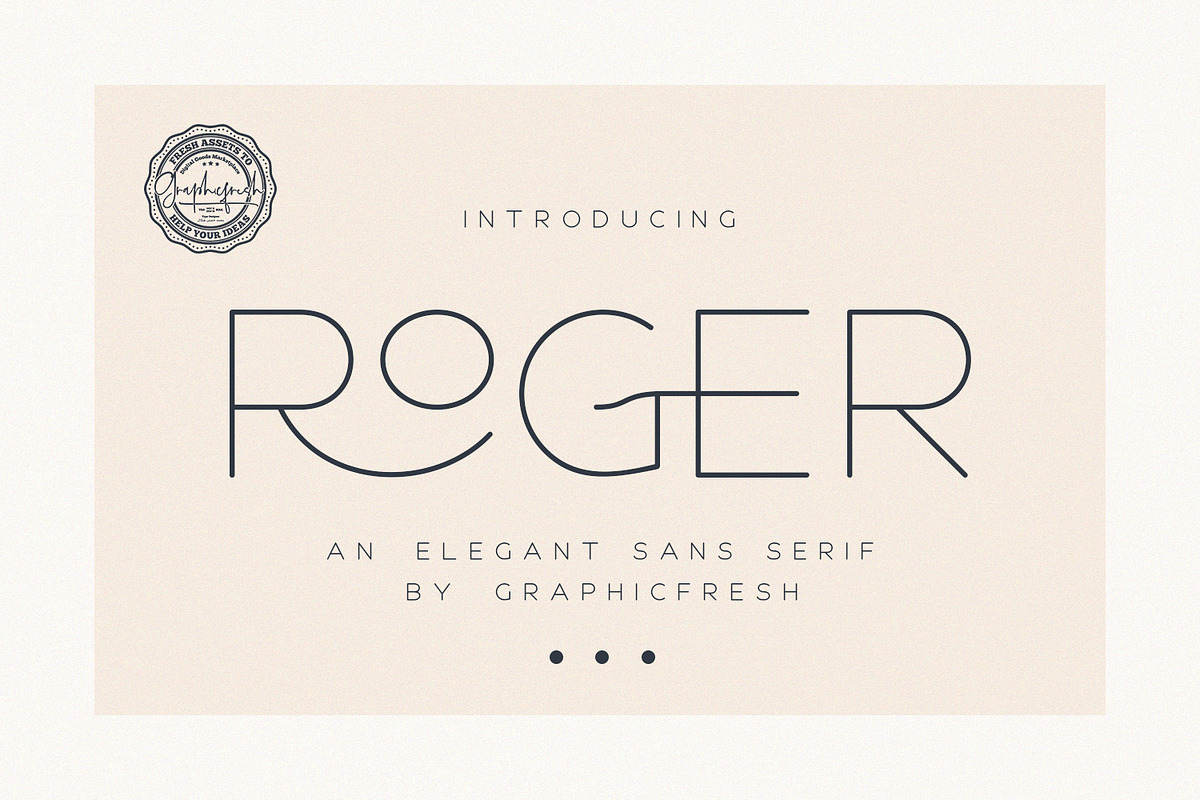
Roger - An Elegant Sans Serif
Roger - An Elegant Sans Serif and minimalist character! it's perfect for logos, name card, magazine layouts, invitations, headers, or even large-scale artwork.
1. Roger - A clean - Regular, bold and Italic version, sans serif font including upper & lowercase characters (ALL CAPS), numerals and more of symbols.